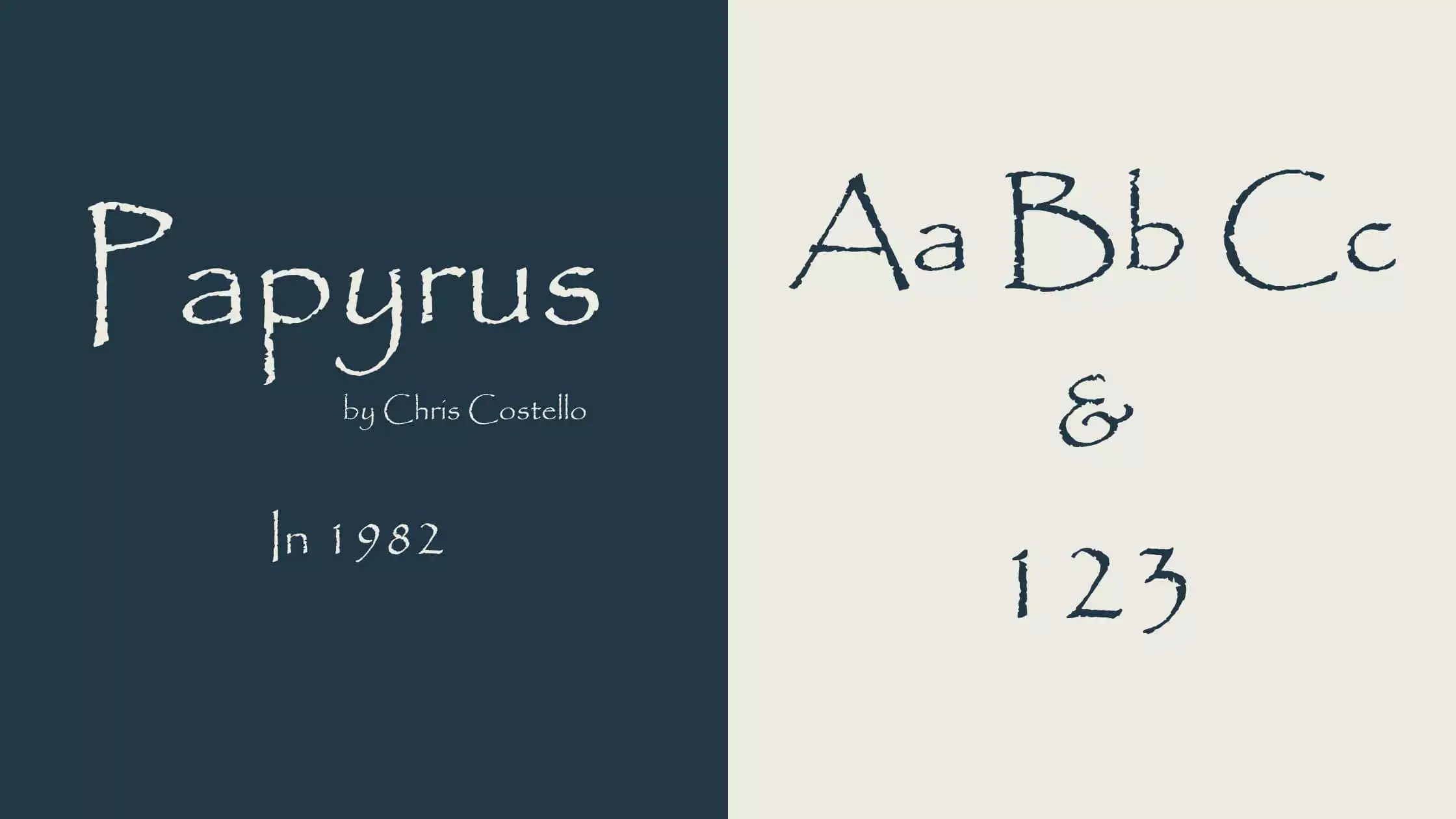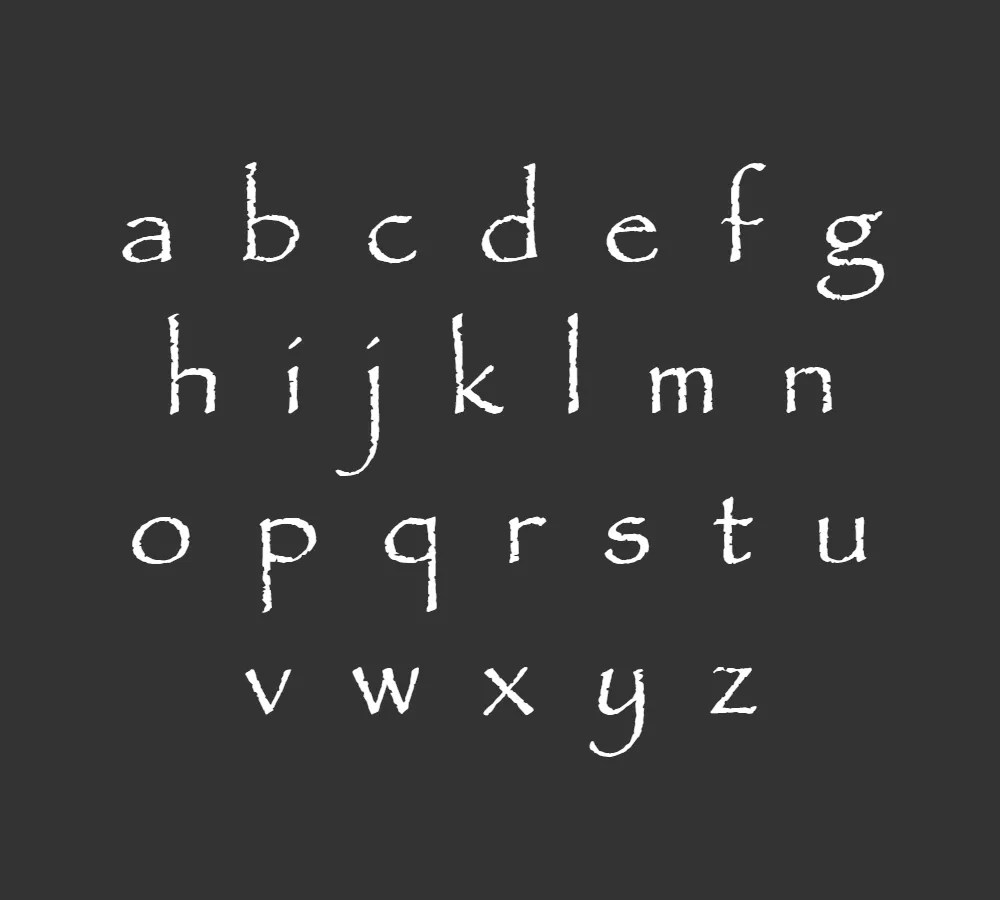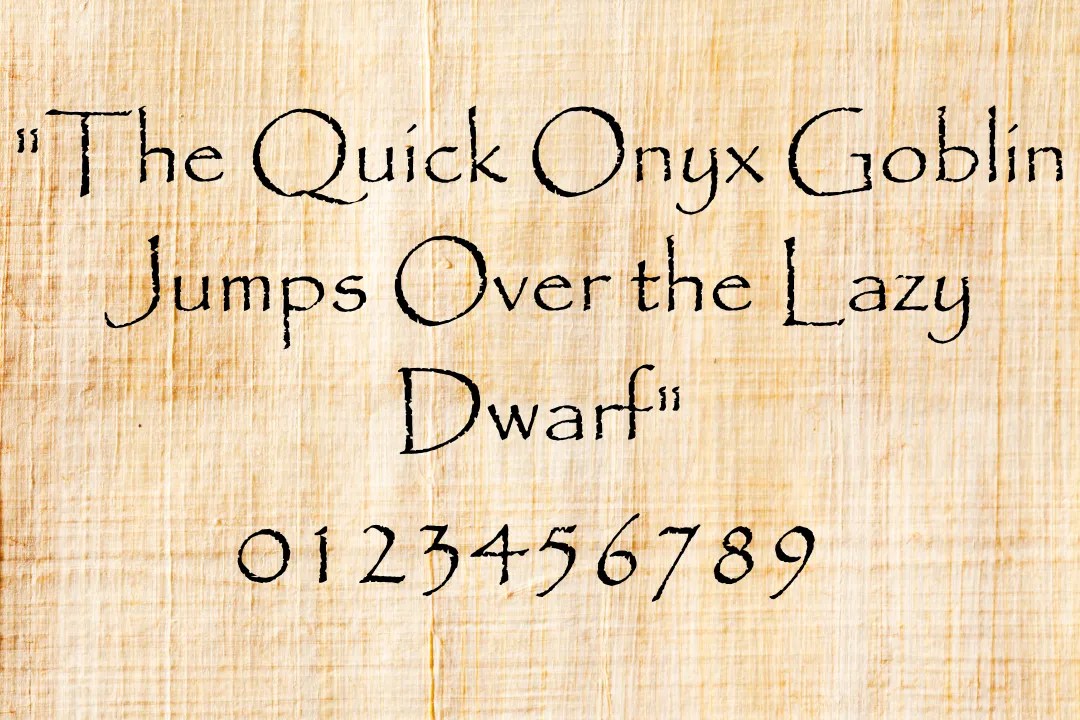
Papyrus Font Canva . In this article, we'll take a look at some similar fonts to papyrus from envato elements. There are many fonts that are similar to papyrus on canva. This informal and handwritten font, designed by george ryan, shares similarities with papyrus. 10 fonts similar to papyrus. Papyrus is a roman calligraphic typeface with distinctive human touches like rough edges, irregular curves, and high horizontal strokes in the caps. Discover 15 fonts similar to papyrus: A web designer and graphic designer, chris costello produced this amazing font in 1982. Some of these fonts include arial, helvetica, and times new roman. Elevate your designs with these versatile typefaces that harmonize seamlessly! Papyrus serif font is a fun, classic serif typeface. We'll also address some of the sentiment behind this popular yet controversial font. What's up with the font papyrus? It imparts a warm and friendly ambience to everything. Alternatives and perfect font pairings. However, it was released in 1983.
A web designer and graphic designer, chris costello produced this amazing font in 1982. What's up with the font papyrus? Discover 15 fonts similar to papyrus: However, it was released in 1983. 10 fonts similar to papyrus. This informal and handwritten font, designed by george ryan, shares similarities with papyrus. It imparts a warm and friendly ambience to everything. Papyrus serif font is a fun, classic serif typeface. Papyrus is a roman calligraphic typeface with distinctive human touches like rough edges, irregular curves, and high horizontal strokes in the caps. In this article, we'll take a look at some similar fonts to papyrus from envato elements.
Papyrus Font Canva We'll also address some of the sentiment behind this popular yet controversial font. This informal and handwritten font, designed by george ryan, shares similarities with papyrus. Alternatives and perfect font pairings. Discover 15 fonts similar to papyrus: 10 fonts similar to papyrus. Some of these fonts include arial, helvetica, and times new roman. However, it was released in 1983. Elevate your designs with these versatile typefaces that harmonize seamlessly! It imparts a warm and friendly ambience to everything. Papyrus is a roman calligraphic typeface with distinctive human touches like rough edges, irregular curves, and high horizontal strokes in the caps. A web designer and graphic designer, chris costello produced this amazing font in 1982. There are many fonts that are similar to papyrus on canva. We'll also address some of the sentiment behind this popular yet controversial font. In this article, we'll take a look at some similar fonts to papyrus from envato elements. Papyrus serif font is a fun, classic serif typeface. What's up with the font papyrus?
Papyrus Font Map Papyrus Font Canva Papyrus is a roman calligraphic typeface with distinctive human touches like rough edges, irregular curves, and high horizontal strokes in the caps. What's up with the font papyrus? However, it was released in 1983. Alternatives and perfect font pairings. Discover 15 fonts similar to papyrus: A web designer and graphic designer, chris costello produced this amazing font in 1982. Some. Papyrus Font Canva.
Papyrus Font Free Download Free Fonts World Papyrus Font Canva Alternatives and perfect font pairings. It imparts a warm and friendly ambience to everything. What's up with the font papyrus? This informal and handwritten font, designed by george ryan, shares similarities with papyrus. Discover 15 fonts similar to papyrus: We'll also address some of the sentiment behind this popular yet controversial font. There are many fonts that are similar to. Papyrus Font Canva.
15+ Fonts Similar To Papyrus + Best Font Pairings Papyrus Font Canva Papyrus is a roman calligraphic typeface with distinctive human touches like rough edges, irregular curves, and high horizontal strokes in the caps. 10 fonts similar to papyrus. We'll also address some of the sentiment behind this popular yet controversial font. Alternatives and perfect font pairings. Discover 15 fonts similar to papyrus: There are many fonts that are similar to papyrus. Papyrus Font Canva.
Papyrus Font Download Free Font Now Papyrus Font Canva Papyrus is a roman calligraphic typeface with distinctive human touches like rough edges, irregular curves, and high horizontal strokes in the caps. Some of these fonts include arial, helvetica, and times new roman. There are many fonts that are similar to papyrus on canva. 10 fonts similar to papyrus. This informal and handwritten font, designed by george ryan, shares similarities. Papyrus Font Canva.
Papyrus Line Circle Gradient Background Icon 素材 Canva可画 Papyrus Font Canva 10 fonts similar to papyrus. In this article, we'll take a look at some similar fonts to papyrus from envato elements. It imparts a warm and friendly ambience to everything. Elevate your designs with these versatile typefaces that harmonize seamlessly! A web designer and graphic designer, chris costello produced this amazing font in 1982. This informal and handwritten font, designed. Papyrus Font Canva.
Papyrus Font Canva This informal and handwritten font, designed by george ryan, shares similarities with papyrus. There are many fonts that are similar to papyrus on canva. It imparts a warm and friendly ambience to everything. We'll also address some of the sentiment behind this popular yet controversial font. What's up with the font papyrus? A web designer and graphic designer, chris costello. Papyrus Font Canva.
Papyrus Font Google Docs Papyrus Font Canva This informal and handwritten font, designed by george ryan, shares similarities with papyrus. However, it was released in 1983. We'll also address some of the sentiment behind this popular yet controversial font. Papyrus serif font is a fun, classic serif typeface. A web designer and graphic designer, chris costello produced this amazing font in 1982. What's up with the font. Papyrus Font Canva.
Papyrus Font Examples at Karen Morales blog Papyrus Font Canva In this article, we'll take a look at some similar fonts to papyrus from envato elements. Some of these fonts include arial, helvetica, and times new roman. Alternatives and perfect font pairings. Discover 15 fonts similar to papyrus: Papyrus is a roman calligraphic typeface with distinctive human touches like rough edges, irregular curves, and high horizontal strokes in the caps.. Papyrus Font Canva.
Papyrus Font Free Download Papyrus Font Canva Alternatives and perfect font pairings. It imparts a warm and friendly ambience to everything. Elevate your designs with these versatile typefaces that harmonize seamlessly! In this article, we'll take a look at some similar fonts to papyrus from envato elements. Some of these fonts include arial, helvetica, and times new roman. 10 fonts similar to papyrus. This informal and handwritten. Papyrus Font Canva.